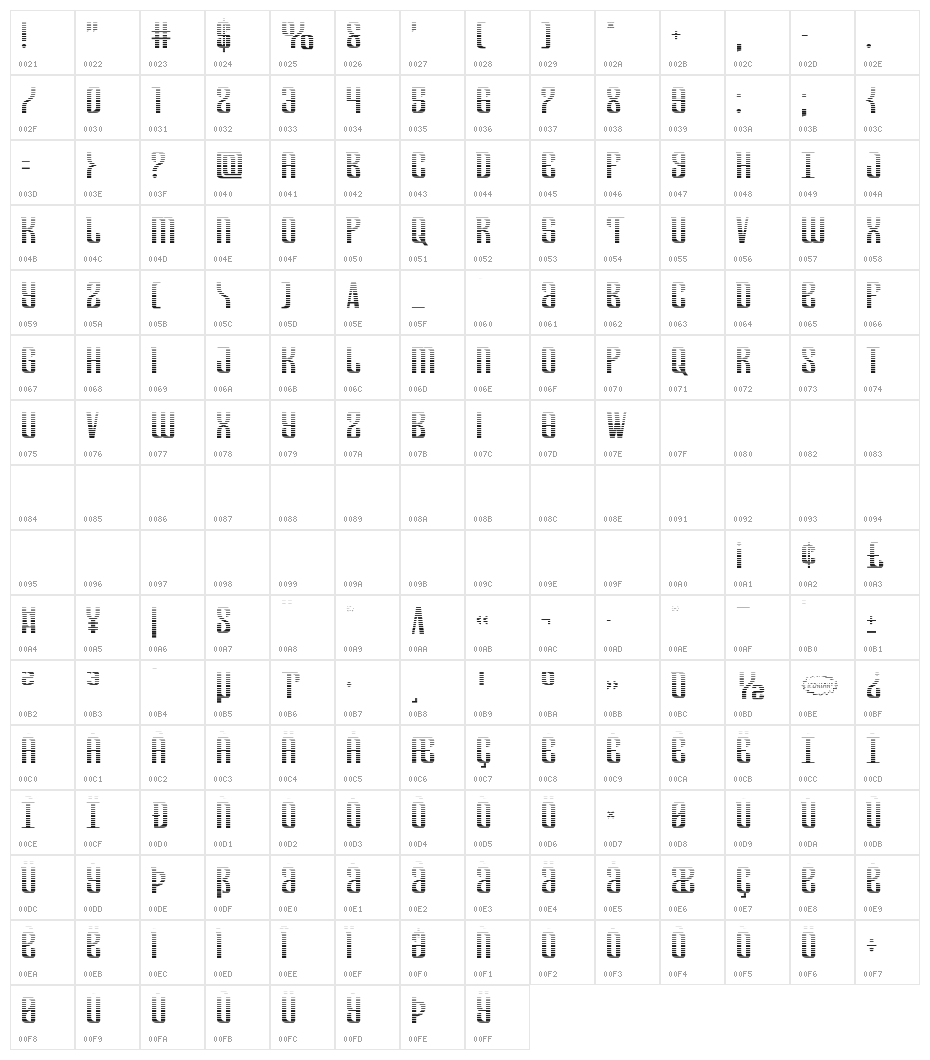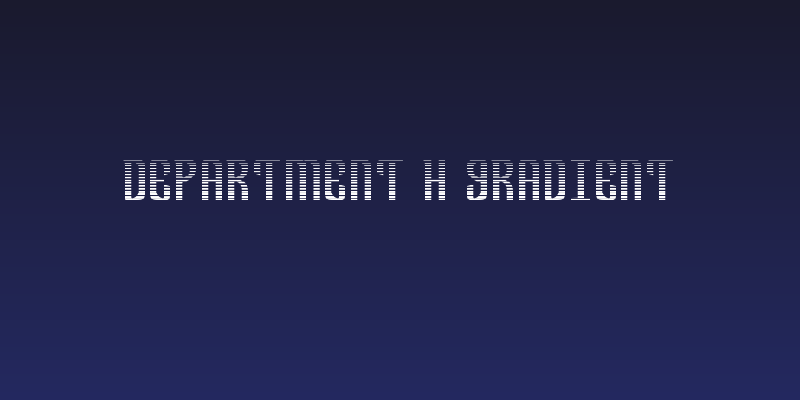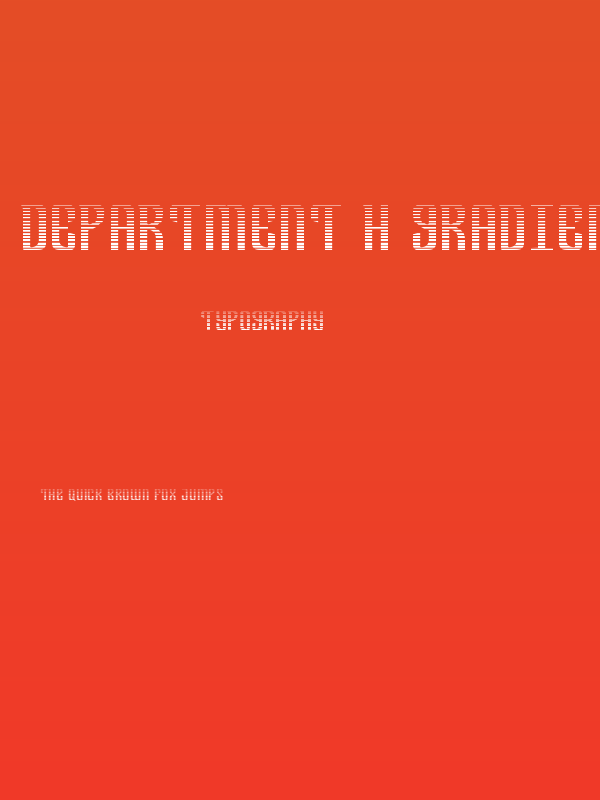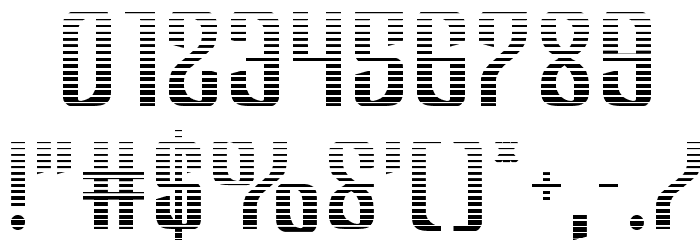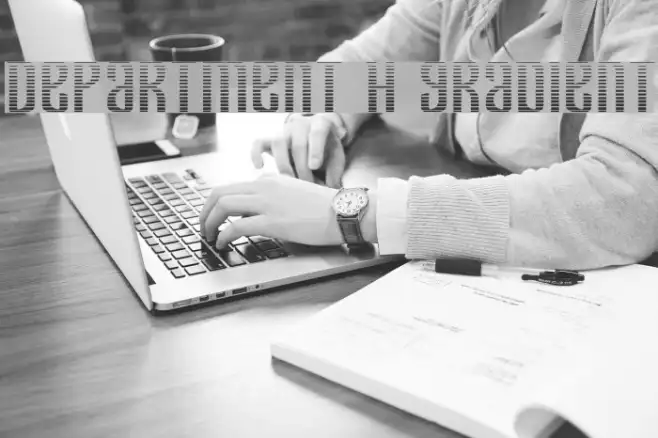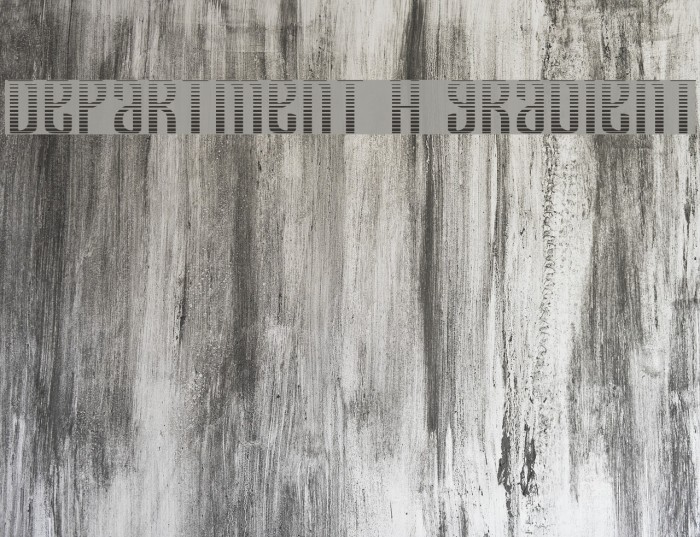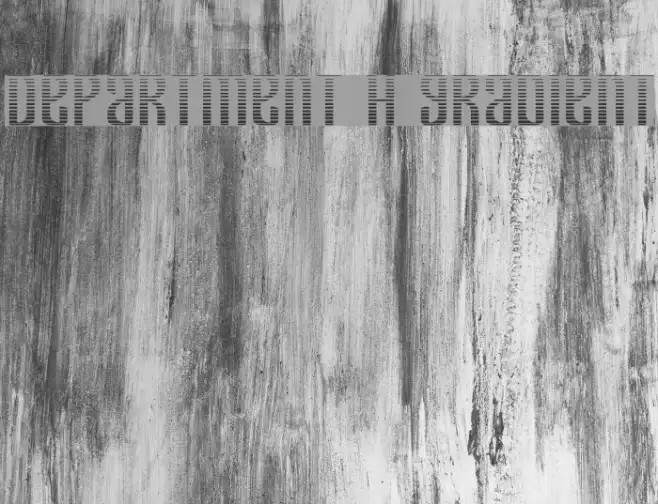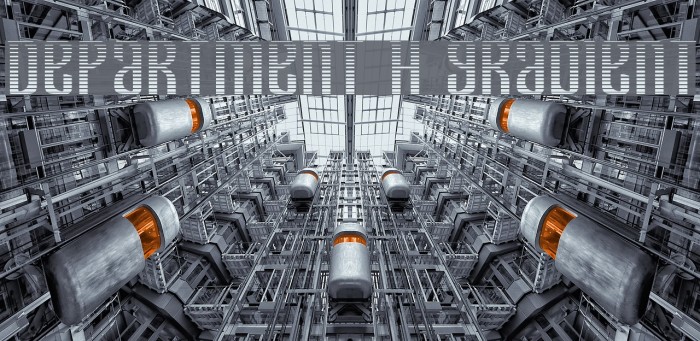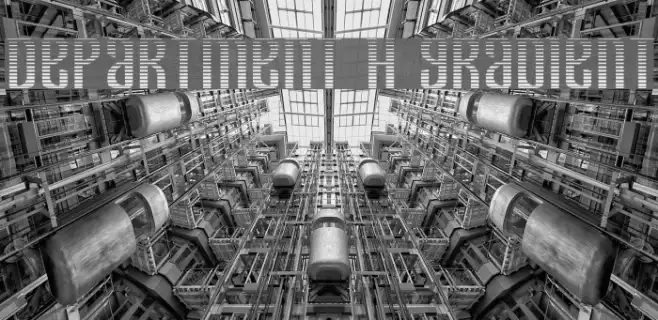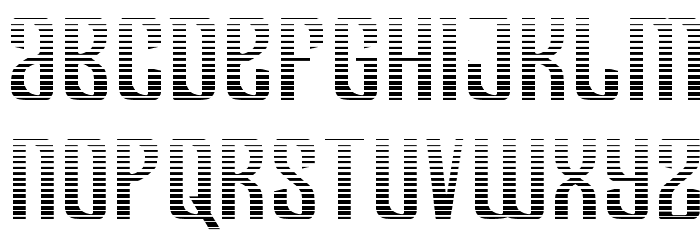
Department H Gradient Font
Department H Gradient Description
This font features a unique gradient effect within its bold, geometric letterforms. The characters are constructed with horizontal lines that create a striped pattern, giving a sense of movement and depth. The uppercase and lowercase letters maintain a consistent width, while the numerals and special characters follow the same stylistic approach. The overall design is modern and eye-catching, making it suitable for projects that require a strong visual impact. The font's distinct style is ideal for creative and innovative designs, offering a futuristic and dynamic appearance.
| Proposed Projects | Ideal for branding, posters, album covers, and digital media that require a bold and futuristic aesthetic. |